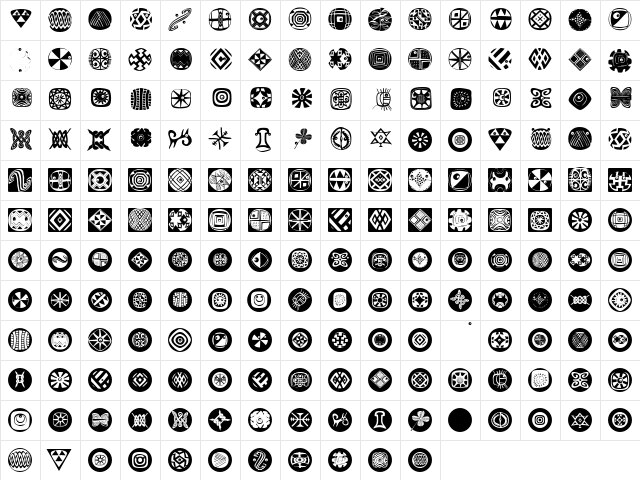
AfroDesigns Regular
Design Context for AfroDesigns Typeface
AfroDesigns is a composed and adaptable typeface that performs quietly and consistently across a wide range of design contexts.